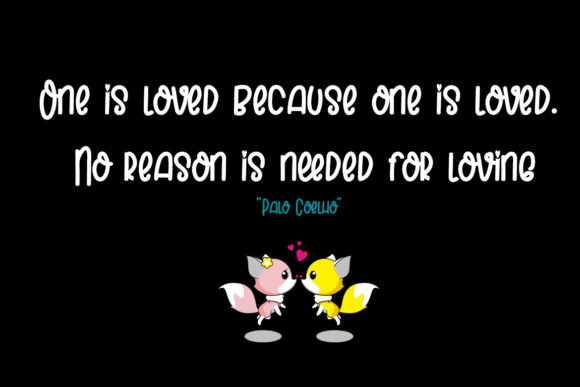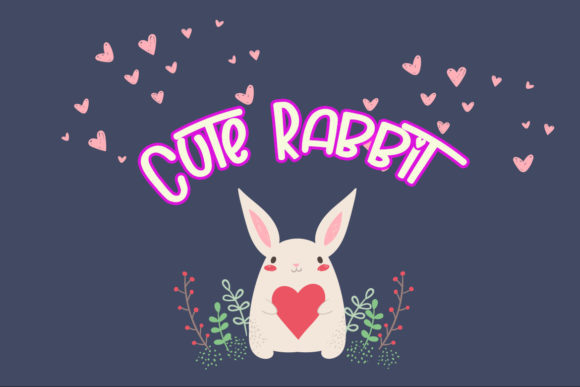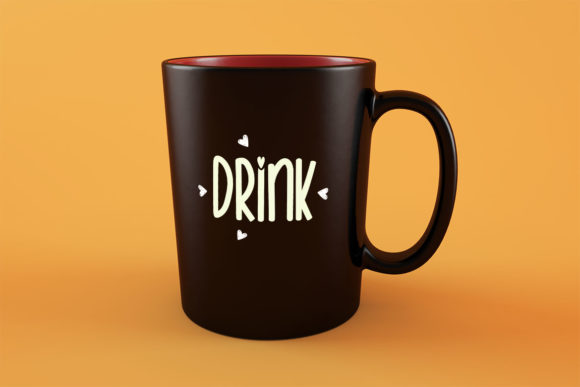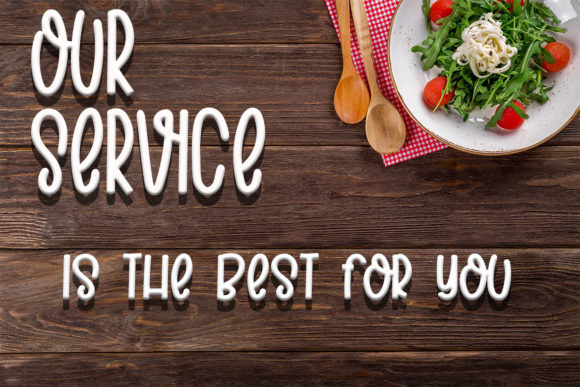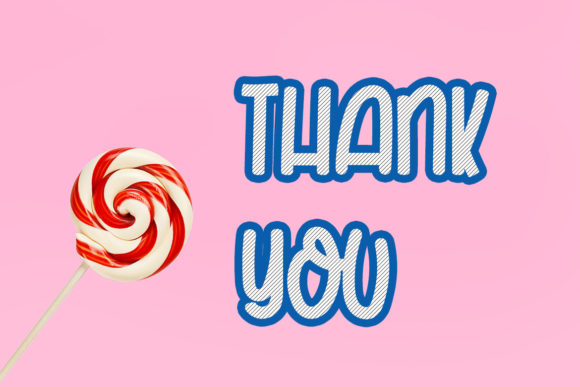
Introduction to Seething Love Font
Have you ever stumbled upon the perfect design element that elevates your creative project from good to great? For designers, it’s that moment of pure joy when all the elements come together, and the final result is nothing short of breathtaking. This is exactly what happens when you fall in love with the Seething Love Font – a charming, handwritten font that’s perfect for adding a personal touch to your designs.
As a valuable resource for designers, the Seething Love Font is a high-quality, free download that can be used on a transparent background, making it versatile and easy to use in any creative project. Its friendly and approachable style makes it an ideal choice for designers looking to create engaging and visually appealing designs.
Key Features of Seething Love Font
- High-quality, free font for creative projects, perfect for designers looking for a unique design resource.
- Includes a wide range of characters, including uppercase and lowercase letters, numbers, and punctuation marks, ensuring it’s suitable for various creative projects.
- Designed with a bold and edgy style, the Seething Love Font is perfect for those who want to add a touch of elegance and sophistication to their designs.
Honest Review: Seething Love Font
I recently stumbled upon the Seething Love Font, and I must say it’s been a game-changer for my creative projects. As a designer, I’m always on the lookout for high-quality design resources that can elevate my work.
What works well: ✨ The font is incredibly versatile and can be used for a wide range of creative projects, from logos to typography-based art. The designer has also provided a transparent background option, making it easy to layer over images or other design elements.
- High-quality design: The font is crisp and clear, making it perfect for both digital and print projects.
- Easy to use: The font is well-designed and easy to work with, even for beginners.
⚠️ One limitation I’ve noticed is that the font may not be suitable for all types of projects. For example, it may not be the best choice for projects that require a more formal or traditional font style.
Overall, I’m really impressed with the Seething Love Font. It’s a great addition to any designer’s toolkit, and I highly recommend it to anyone looking for a high-quality, free design resource.
Tips for Getting the Most Out of the Seething Love Font
Use the Seething Love Font on a transparent background to create a striking design. Experiment with different font sizes, styles, and colors to add depth and visual interest to your project. Consider pairing the font with other design elements, such as images or graphics, to create a cohesive look.
The Seething Love Font is perfect for a variety of projects, including social media graphics, blog posts, and presentations. Its unique style makes it ideal for creative projects that require a touch of elegance and sophistication.